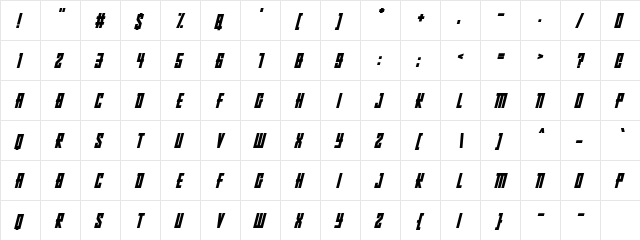
Russian Dollmaker Italic
Design Context for Russian Dollmaker Typeface
Russian Dollmaker is a composed and adaptable typeface that performs quietly and consistently across a wide range of design contexts. The slanted form adds forward momentum and visual energy.
Pro Tip: Try Russian Dollmaker for annotation and caption copy alongside an upright companion — the contrast in angle creates a dynamic but ordered typographic system.